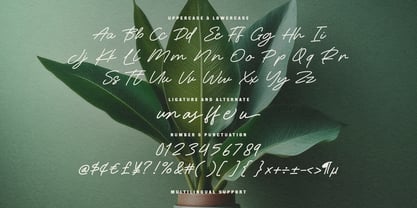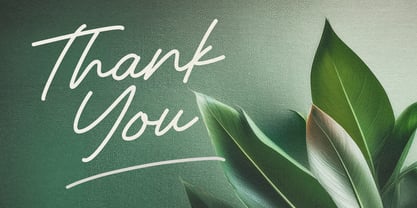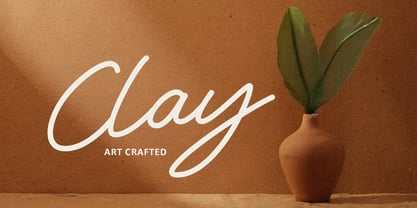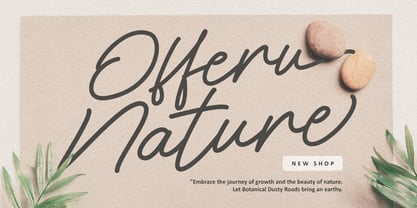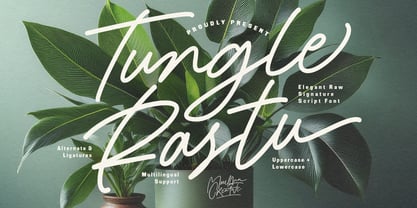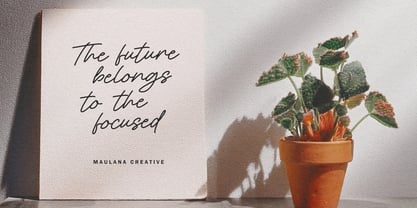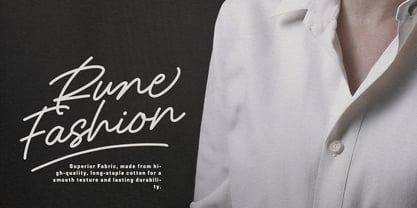
MC Tungle Rastu
by Maulana Creative
The MC Tungle Rastu Font Family was designed by Gilang Maulana and published by Maulana Creative. MC Tungle Rastu contains 1 styles. More about this family
Tungle Rastu is a sophisticated signature script font that strikes a perfect balance between raw, organic strokes and elegant flow. Designed to mimic natural handwriting, it features stylish ligatures and alternates that give any design an authentic, handcrafted feel. Its versatile "raw" aesthetic makes it ideal for high-end branding, fashion logos, wedding invitations, social media quotes, and lifestyle photography overlays. With full multilingual support and a comprehensive set of characters, Tungle Rastu brings a touch of effortless luxury to your creative projects.
Designers: Gilang Maulana
Foundry: Maulana Creative